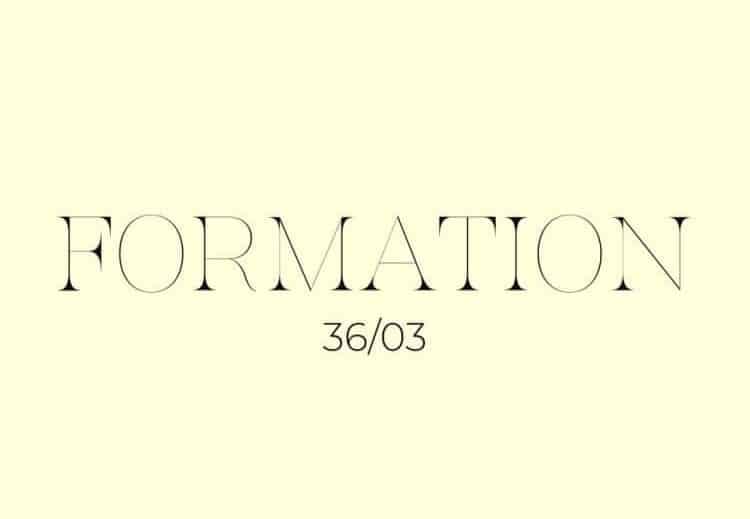
Palm Emile Font
Palm Emile Font is a refined serif display typeface that blends classic sophistication with modern charm. Featuring elegant curves, unique ligatures, and a sun-kissed aesthetic, Palm Emile is designed to bring warmth and personality to your visual projects.